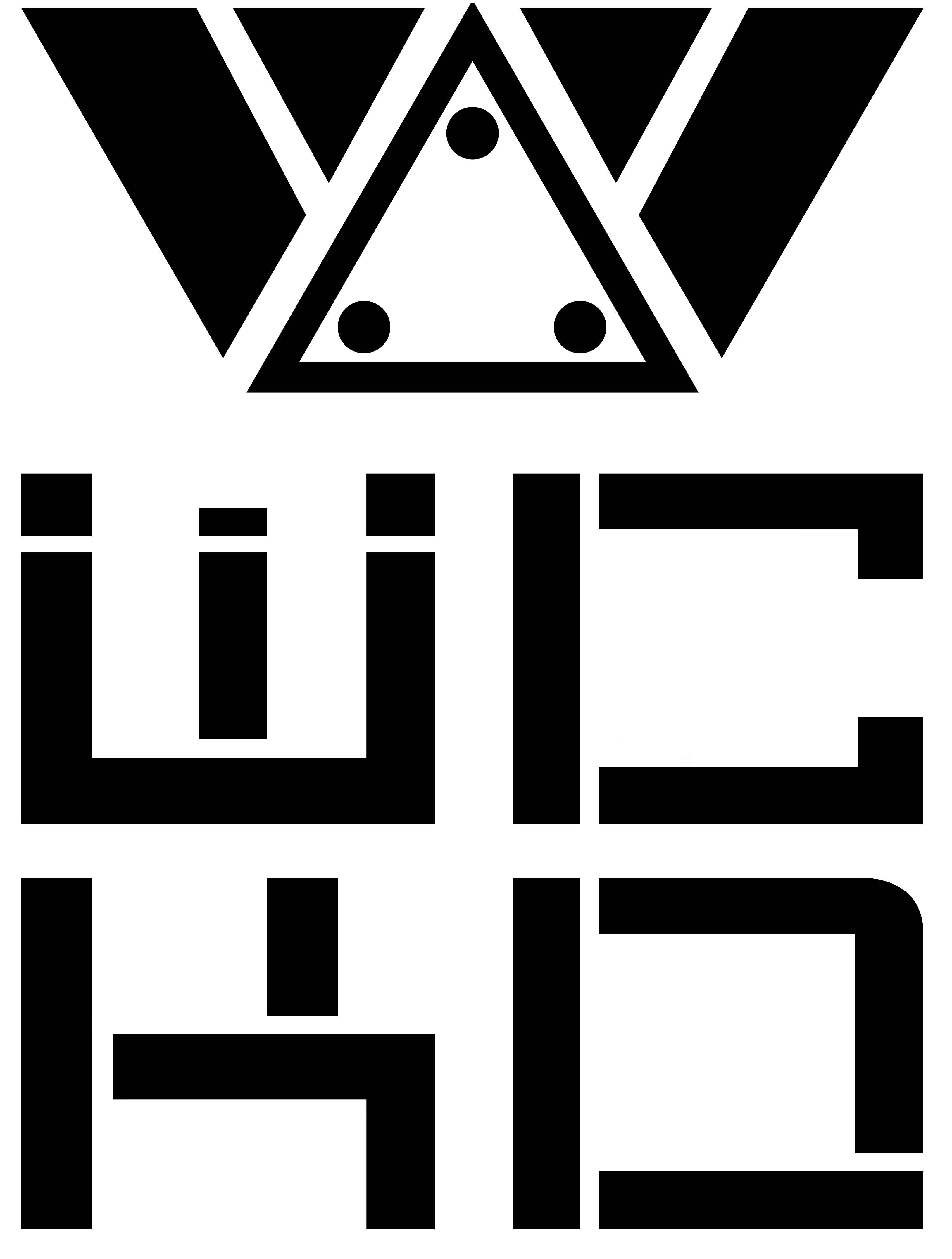
There is an organization from the Maze Runner Series known as ‘WCKD.’ I cannot seem to find the font used in its logo, and any font scanner I tried using cannot correctly identify the font’s glyphs due to its stencil-like nature. Any insight on what font it may be would be instrumental to my cause. Thank you.
There are a good number of similar fonts, but not this one. I suspect it was custom designed for the book and series.
Yes, it turns out that you’re correct; I contacted the director of the film over the query, who did indeed state that it isn’t a font but was custom-made for the material. Thank you for your contribution, though.
I couldn’t find the exact font, but it seems like OPTIJerklista Demi is the most similar